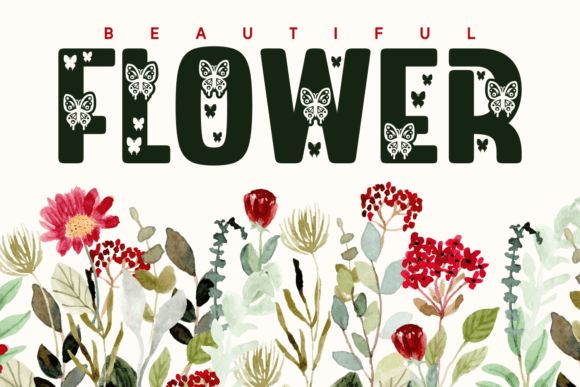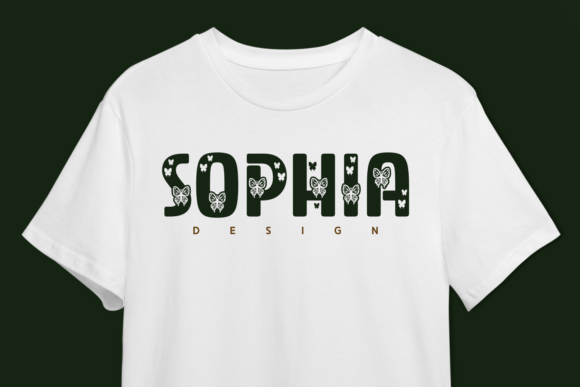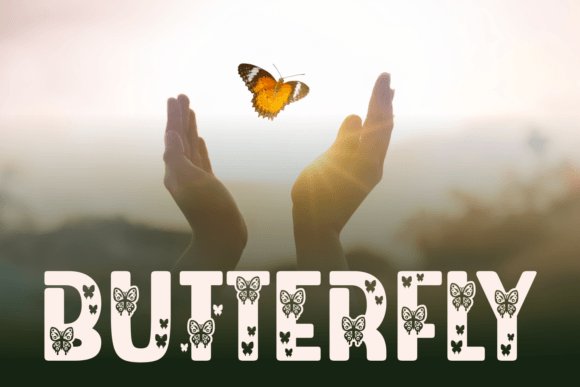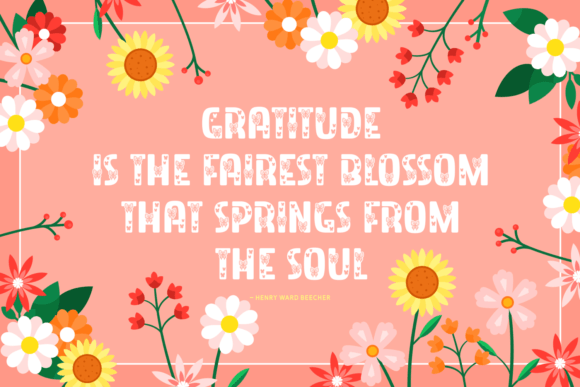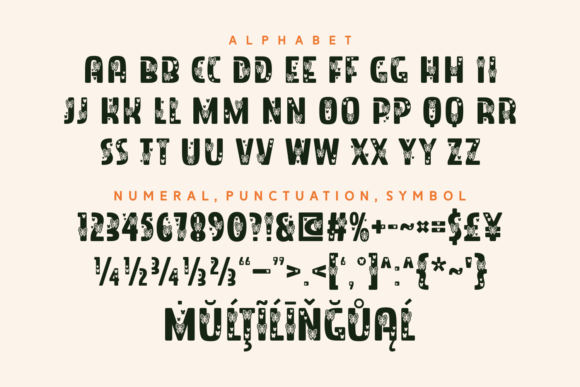
Introducing Gate Flya Font: Unleash Your Creativity with Whimsical Butterfly-Patterned Strokes
Are you a designer, crafter, or DIY enthusiast looking for a unique and playful font to elevate your creative projects? Look no further than Gate Flya Font! This delightful decorative font is designed to inspire your imagination and add a touch of whimsy to your designs. With its distinctive butterfly-patterned strokes, Gate Flya Font is perfect for creating one-of-a-kind designs that stand out from the crowd.
What is Gate Flya Font?
Gate Flya Font is a carefully crafted decorative font that features intricate butterfly-patterned strokes. Its unique design makes it an ideal choice for a wide range of creative projects, from invitations and thank you cards to quotes, greeting cards, logos, business cards, and more. Whether you’re a professional designer or a crafty DIY enthusiast, Gate Flya Font is sure to add a touch of magic to your designs.
Key Features of Gate Flya Font
- Unique and Playful Design: Gate Flya Font boasts a distinctive butterfly-patterned stroke design that adds a touch of whimsy to your projects.
- Versatile: Use Gate Flya Font for a wide range of creative projects, including invitations, thank you cards, quotes, greeting cards, logos, business cards, and more.
- High-Quality Design: Gate Flya Font is designed with high-quality craftsmanship, ensuring that your projects look professional and polished.
Creative Ways to Use Gate Flya Font
Gate Flya Font is a versatile font that can be used in a variety of creative projects. Here are some ideas to get you started:
- Invitations: Use Gate Flya Font to create unique and eye-catching invitations for weddings, birthday parties, baby showers, and more.
- Thank You Cards: Add a personal touch to your thank you cards with Gate Flya Font’s whimsical butterfly-patterned strokes.
- Quotes and Posters: Create inspiring quotes and posters with Gate Flya Font to add a touch of elegance and sophistication.
- Greeting Cards: Use Gate Flya Font to design beautiful greeting cards for special occasions, such as Christmas, Valentine’s Day, and Mother’s Day.
- Logos and Branding: Gate Flya Font can be used to create unique and memorable logos and branding materials for businesses and entrepreneurs.
- Business Cards: Stand out from the crowd with Gate Flya Font’s distinctive design on your business cards.
Gate Flya Font is a unique and playful decorative font that is sure to inspire your creativity and add a touch of whimsy to your designs. With its distinctive butterfly-patterned strokes, Gate Flya Font is perfect for designers, crafters, and DIY enthusiasts looking to create one-of-a-kind designs. Whether you’re working on invitations, thank you cards, quotes, greeting cards, logos, business cards, or any other project, Gate Flya Font is a great choice. So why wait? Download Gate Flya Font today and unleash your creativity!